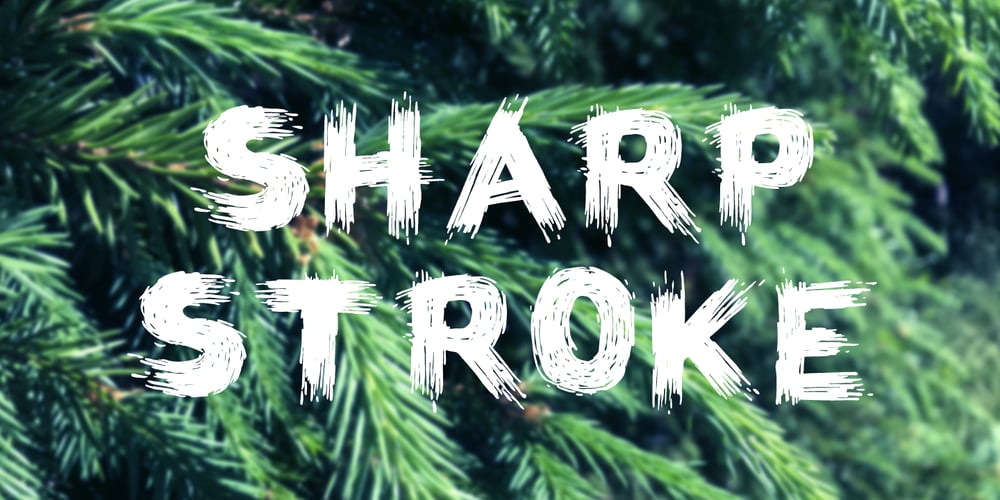
Sharp Stroke Font Family was designed by Roman Korolev and published by Kaer. Sharp Stroke contains 1 styles and family package options. Hand drawn felt pen font. Vector grunge style design for your posters or prints.